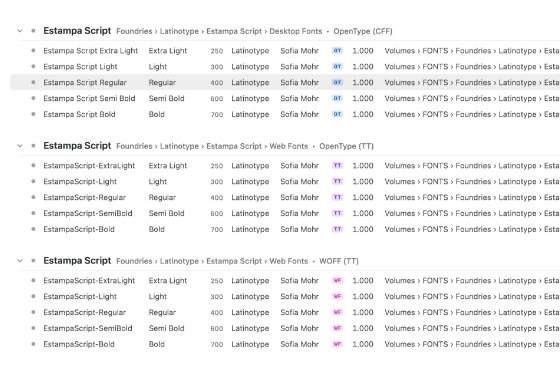
Typeface 4.4
Localized forms
Modern font files are much more than just a collection of fancy glyphs. Advanced OpenType features give the ability to change specific glyphs into alternates, swashes, ligatures, small caps etc. to make a design of your own. One of these typographic features is called ‘Localized Forms’ which allows a font to show a localized variant form of certain characters based on the text language.
For example the Cyrillic letter De (д) has multiple forms, where the variant that resembles the triangular shape of the Greek letter delta may be used in Bulgarian and Serbian. Or the Latin letter S with cedilla (ş) which can be displayed as an S with comma in Romanian.
Now you can preview these in Typeface by choosing a language from the > menu. Fonts that support localized forms will show the glyph variants for the selected language.
This feature works because a font may define a different set of OpenType features for specific scripts and languages. You can browse these different sets in the Features detail tab using the new script selector.
Additionally, the family style list has been enhanced with automatically grouped related styles. This is particularly useful if you have duplicate fonts from different foundries or fonts that come in multiple formats (web fonts, desktop fonts).
These styles are now neatly organized in separate sections in the detail view, such that you can localize and activate exactly the ones you need. And the new auto resizing columns ensure all meta data is visible in the family style list.
| NEW | Preview the Localized Forms OpenType feature by choosing a language from the > menu |
| NEW | Inspect OpenType features for different scripts and languages in the Features detail tab |
| NEW | Group related family styles in Detail List Styles to make it easier to spot fonts from a specific foundry or that have the same kind |
| IMPROVED | Show additional OpenType features in the Features detail tab such as vertical forms and right-to-left alternates |